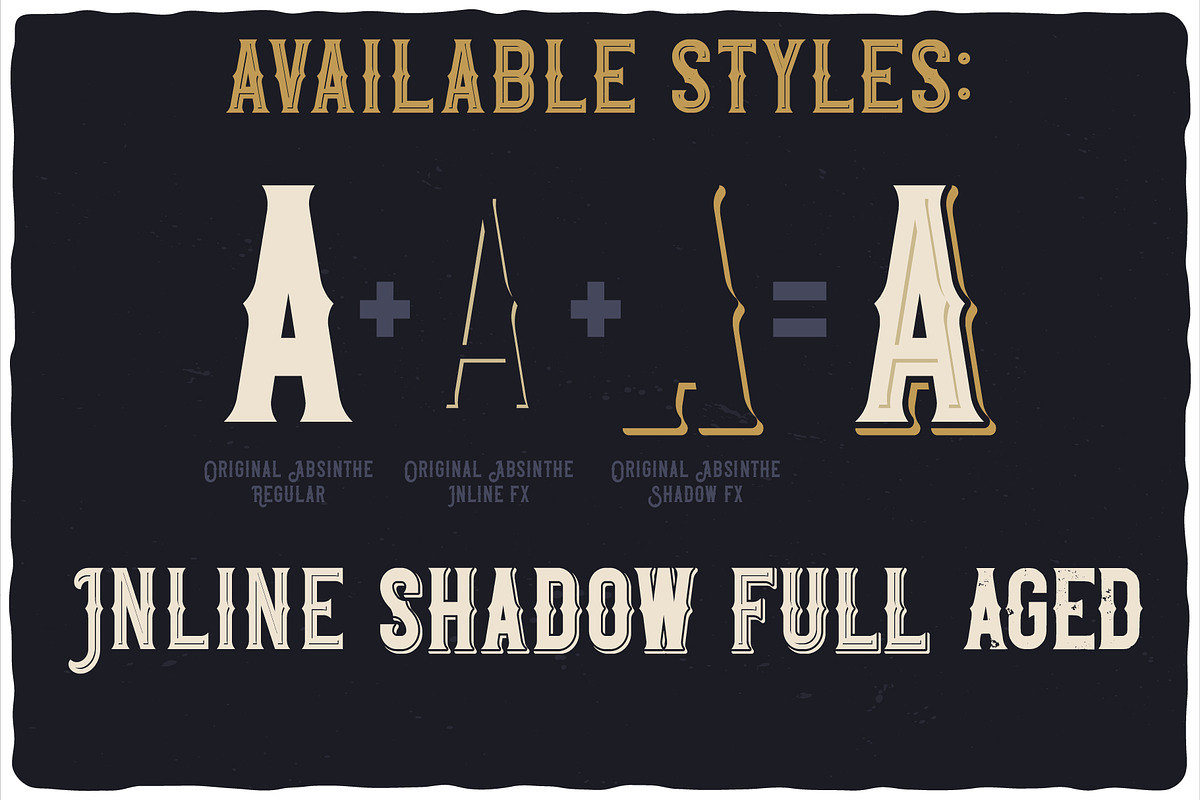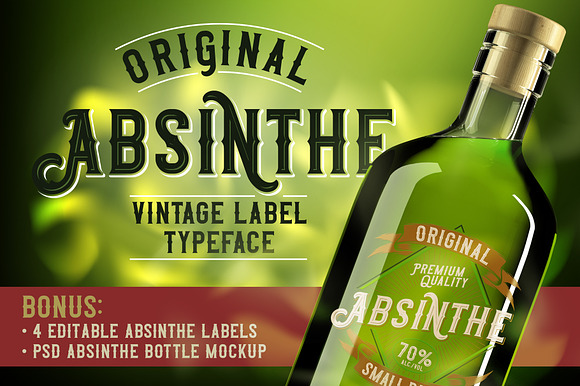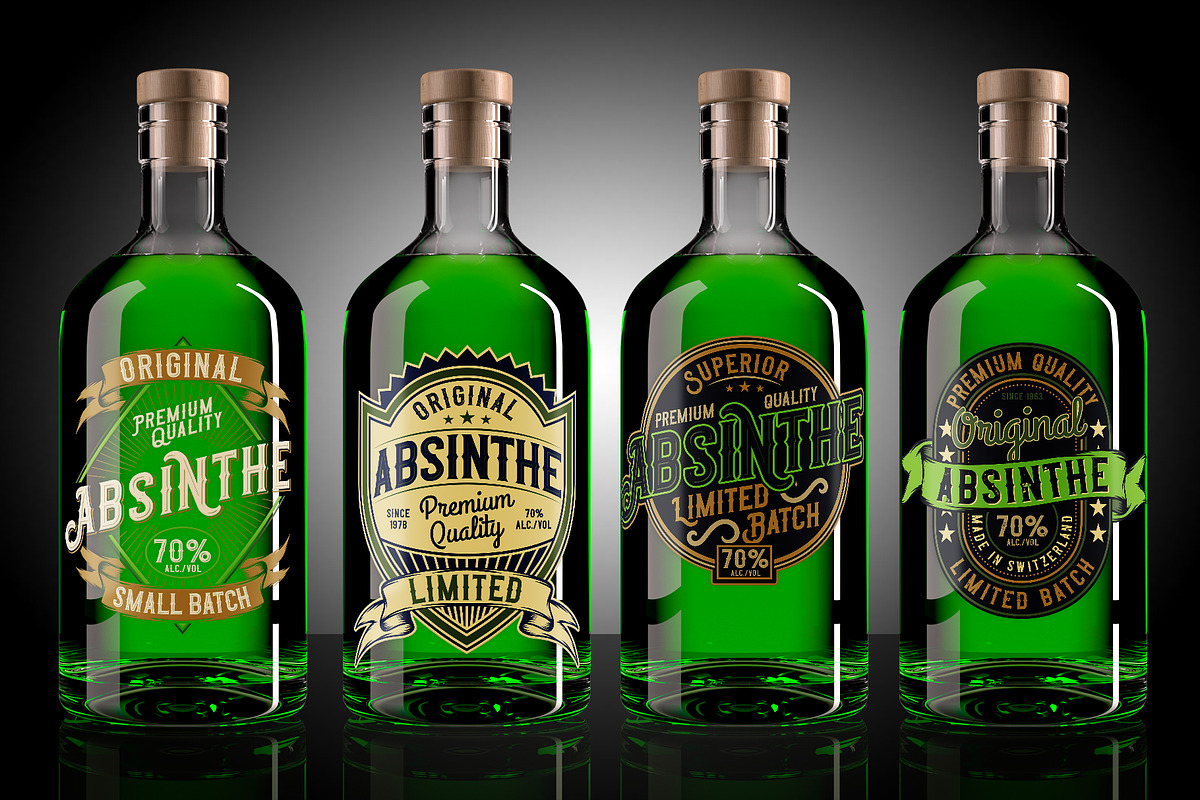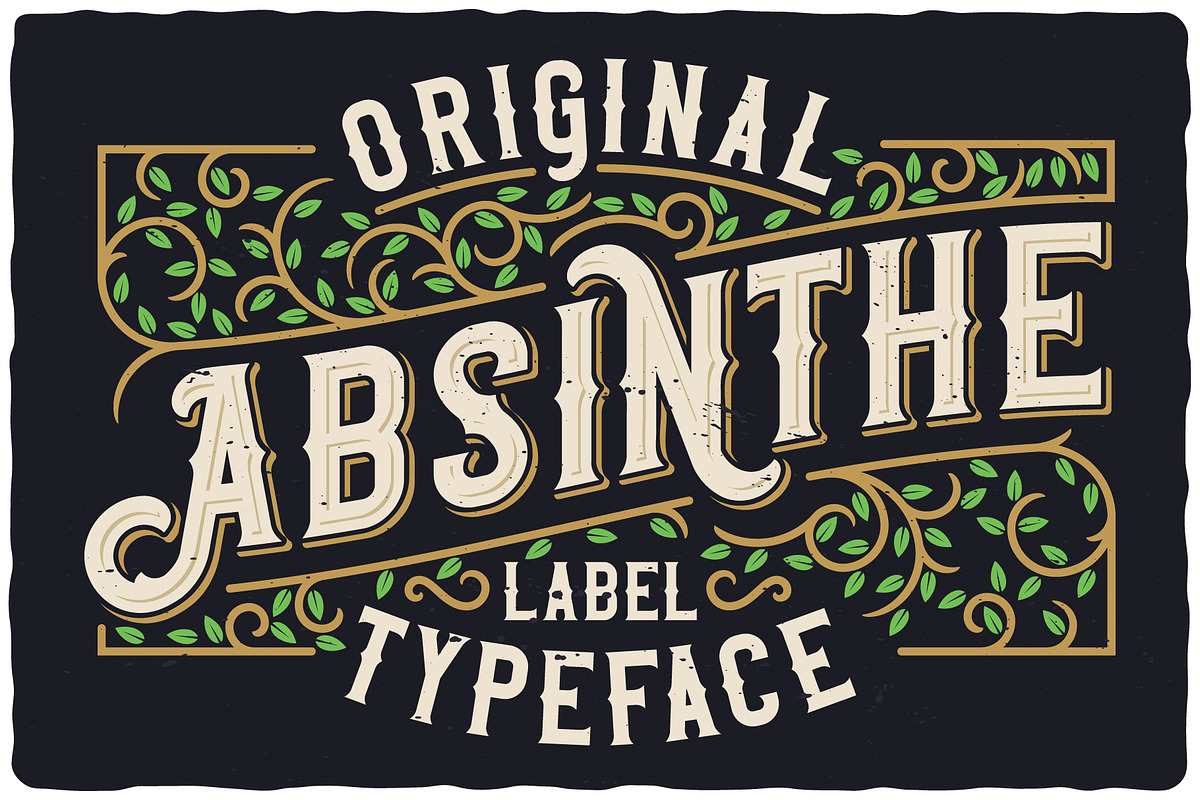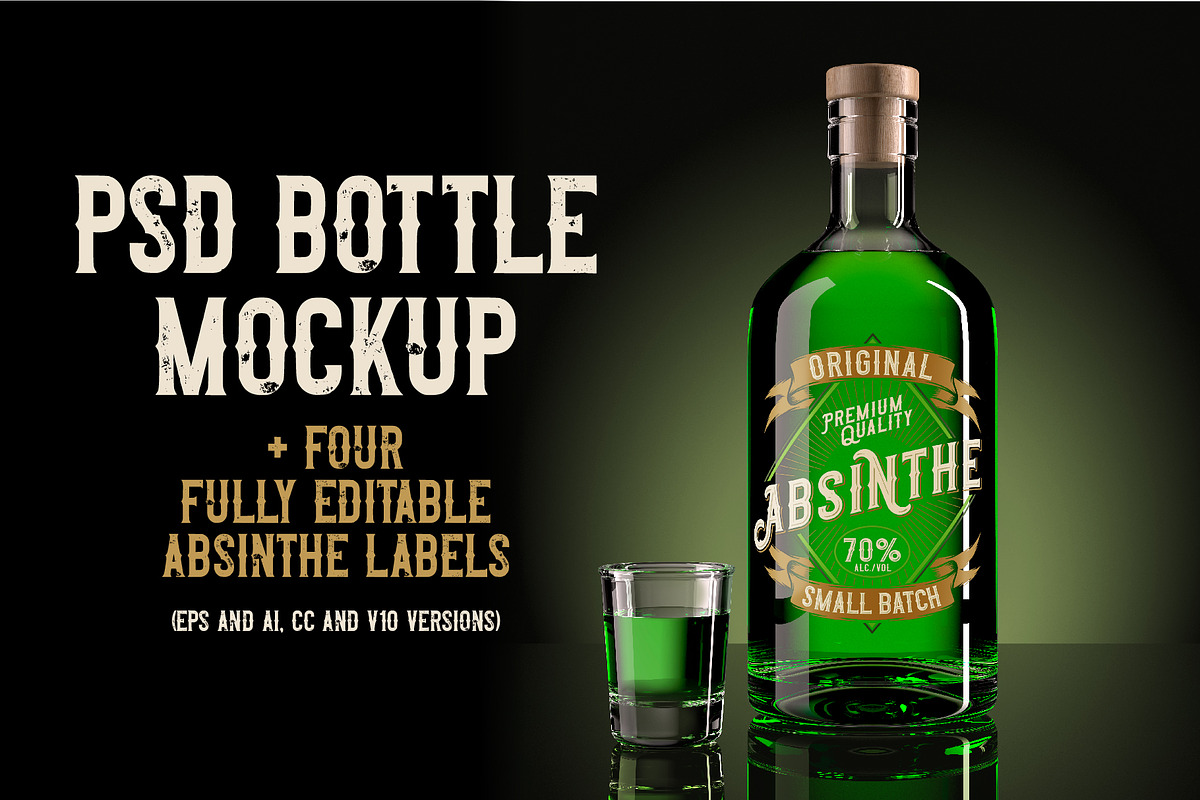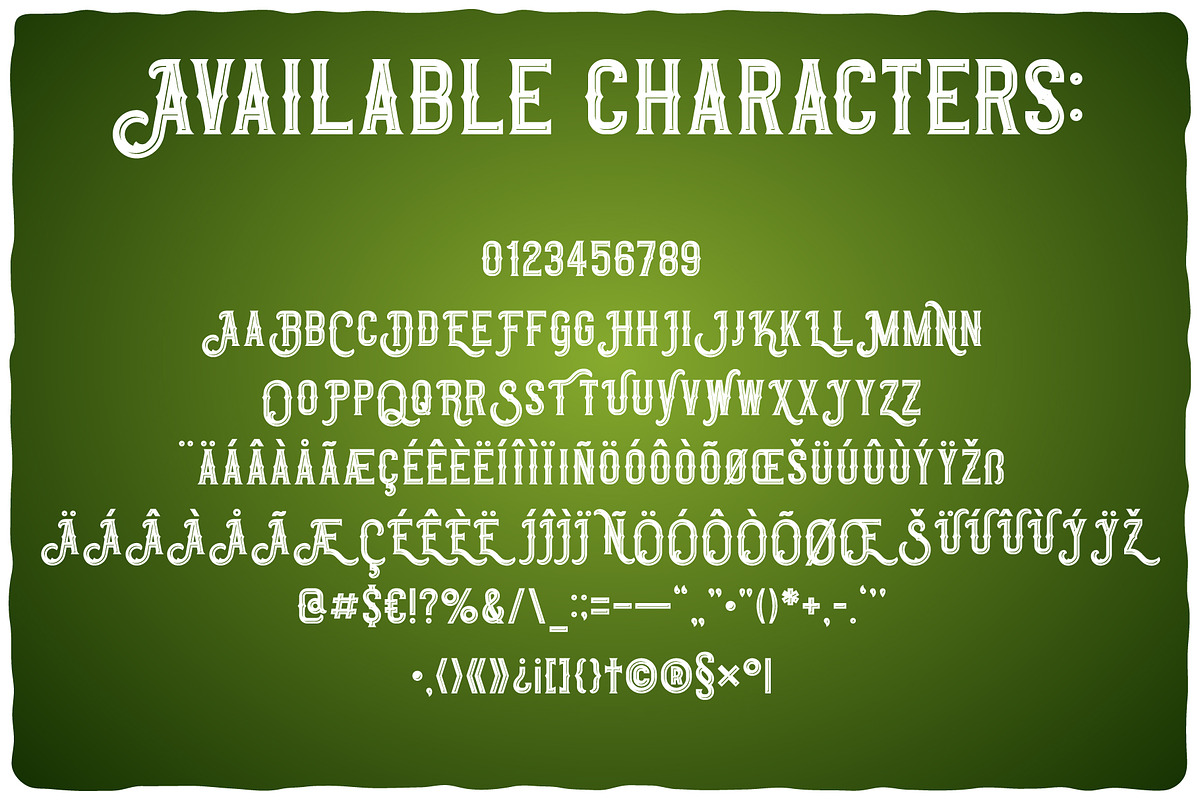
Original Absinthe Layered Font
Introducing a vintage look label font named "Original Absinthe". This family includes seven styles - Regular, Inline, Shadow, Inline FX, Shadow FX, Full and Aged. Samples you can find on the preview. This font will good viewed on any retro design like poster, t-shirt, label, logo etc.
Using shadow effect layer:
Type your text in Regular.
Copy that and paste at the same position.
Change the style to Shadow FX or Inline FX.